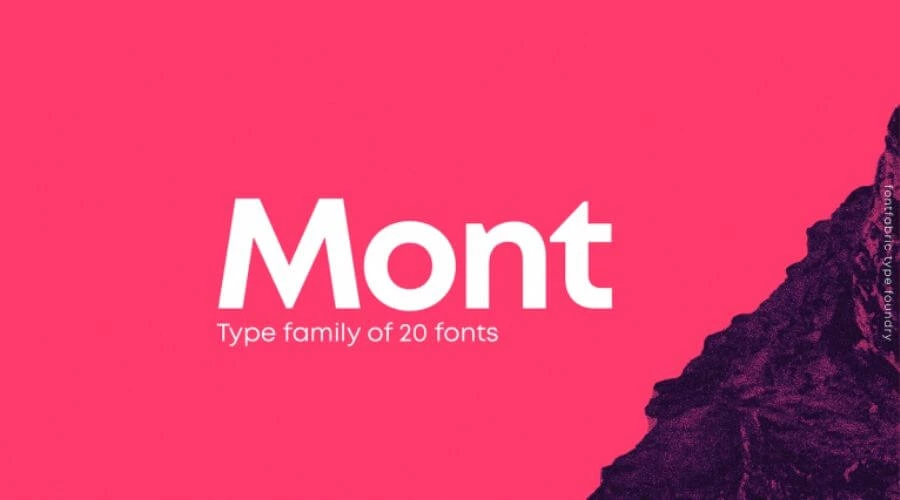
Mont is a geometric sans serif typeface. Svetoslav Simov and Mirela Belova designed this font. Mont Font is published through Fontfabric. With including tabular figures and advanced typographic features, It is one of the best fonts in my opinion. With the balanced characteristic, this font also has some supreme details. The pointed βtβ and the prominent x-height make this font so much perfect for every working field.
This font has 10 weights and every weight consists of two styles that means it has a total of 20 styles. These 20 styles include 744 glyphs. Mont font family support Extended Latin, Cyrillic, and Greek β more than 130 languages all together. Gilroy and Visby CF is mostly similar to Mont.
Mont is one of the popular fonts nowadays. It can be used in lots of working areas. You can use this for official purposes to unofficial purposes. Mont is also perfect for strong headlines.
Designers use this font a lot in their designing projects. So, you can create logos, brochures, banner, posters, business cards, presentations and many more. Mont is also suitable for web, print, motion graphics.
| Style | Geometric Sans Serif |
| Author | Svetoslav Simov and Mirela Belova |
Ans: Mont is a geometric sans serif typeface font.